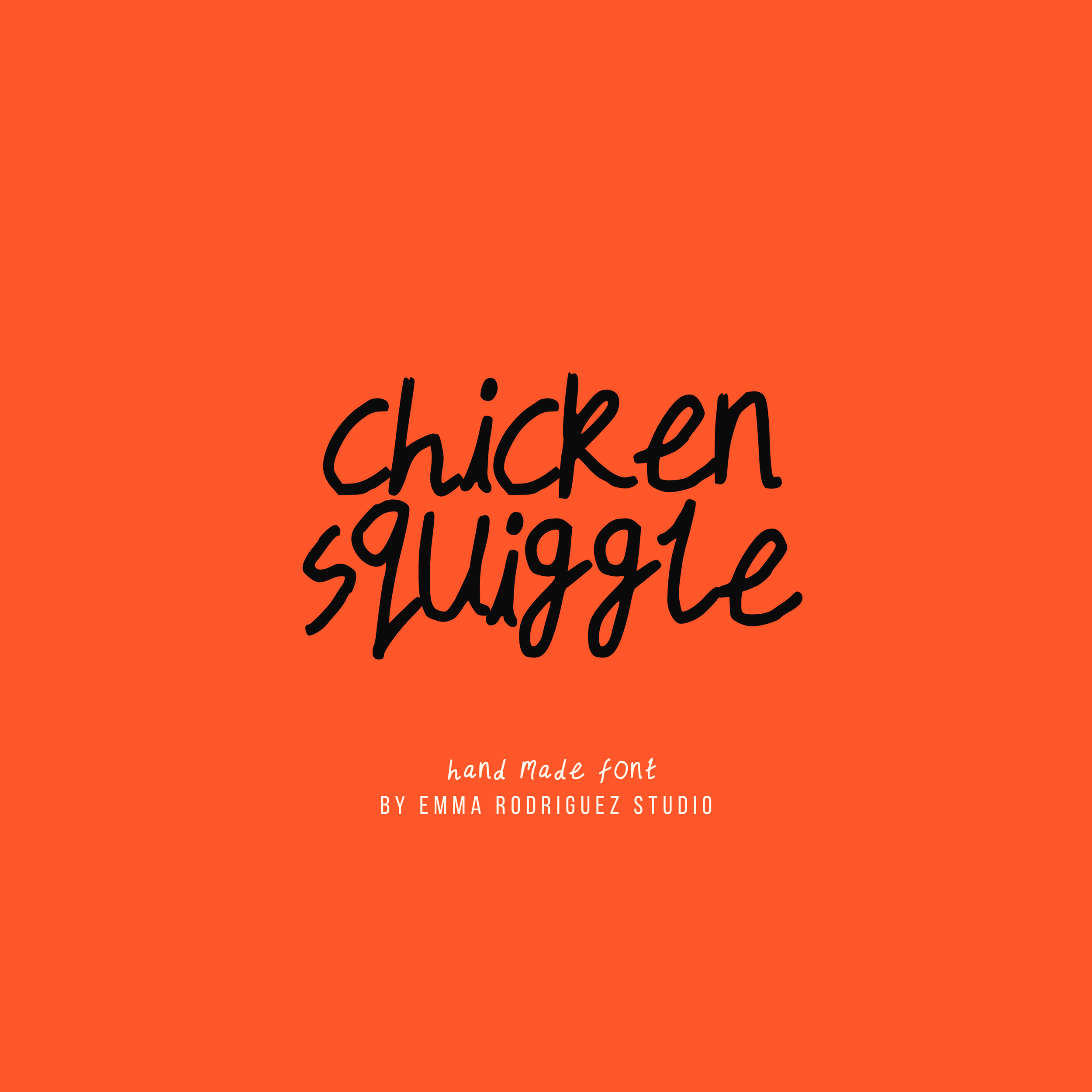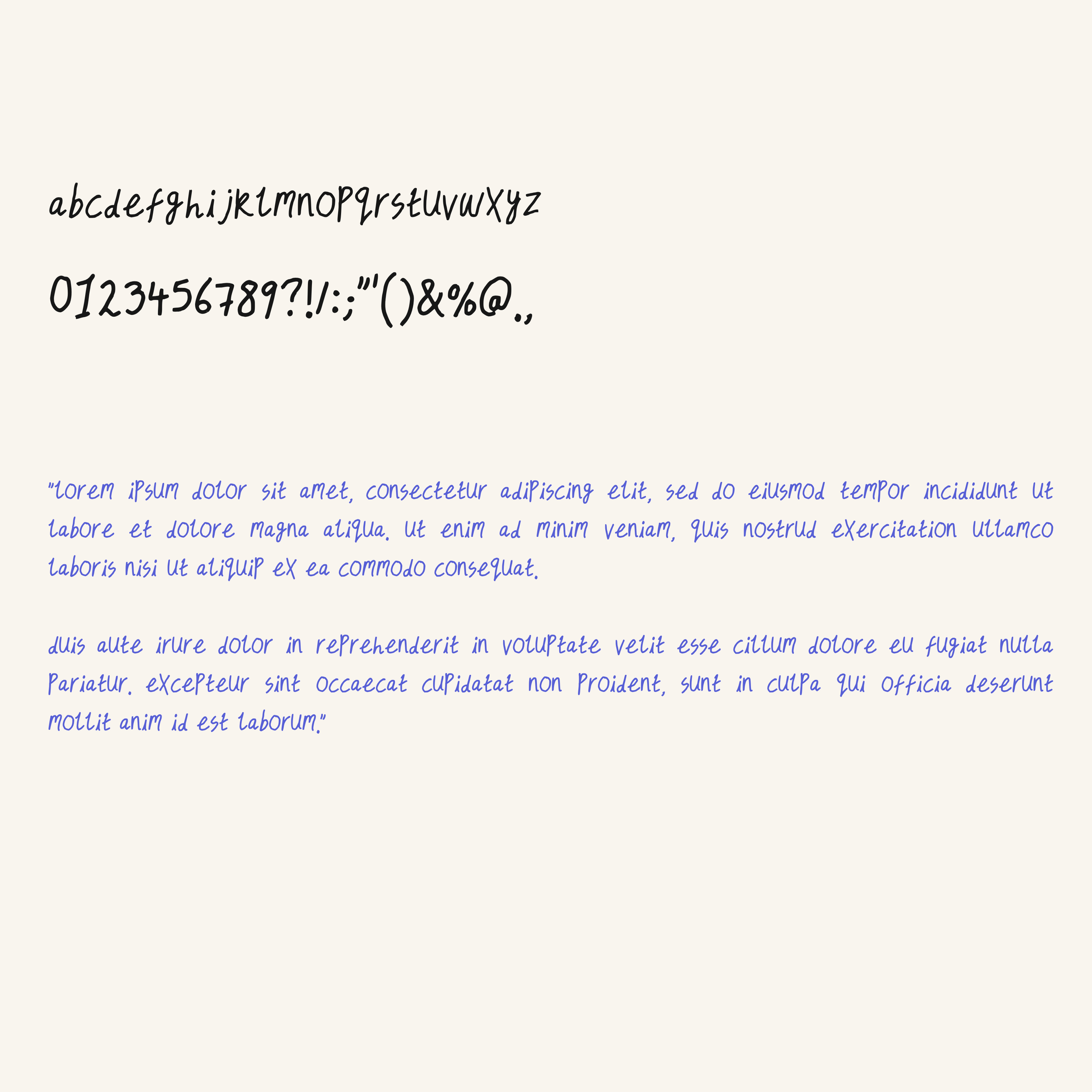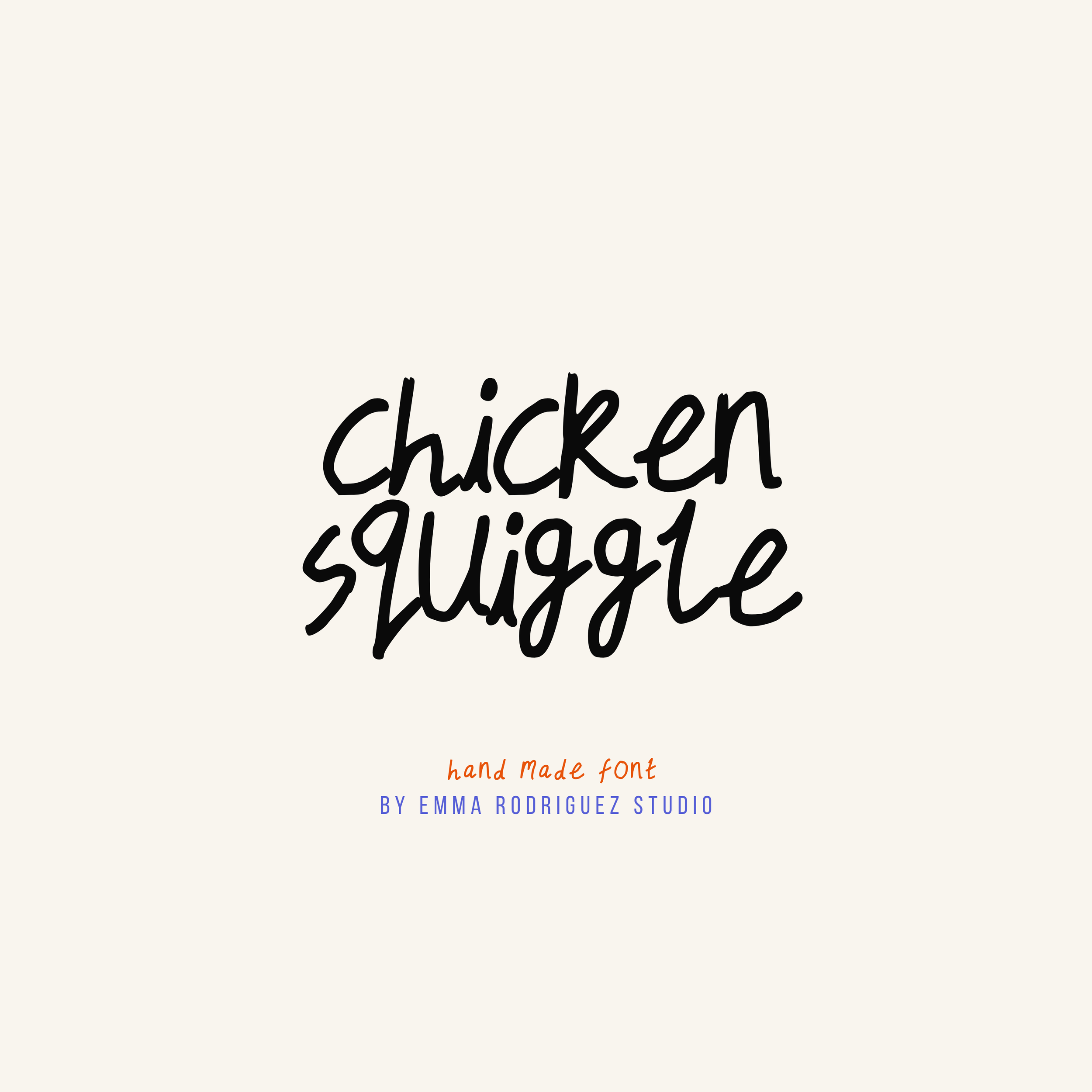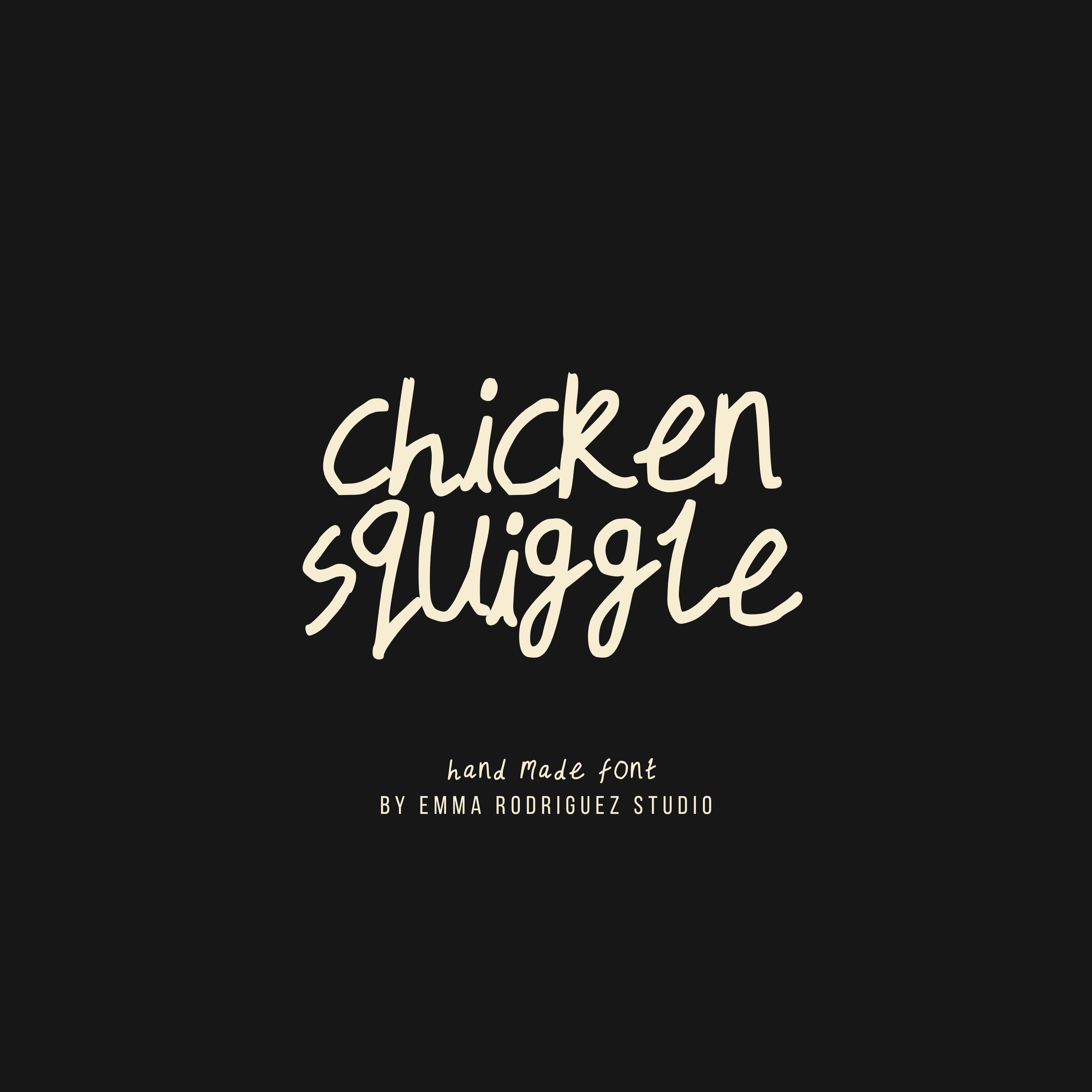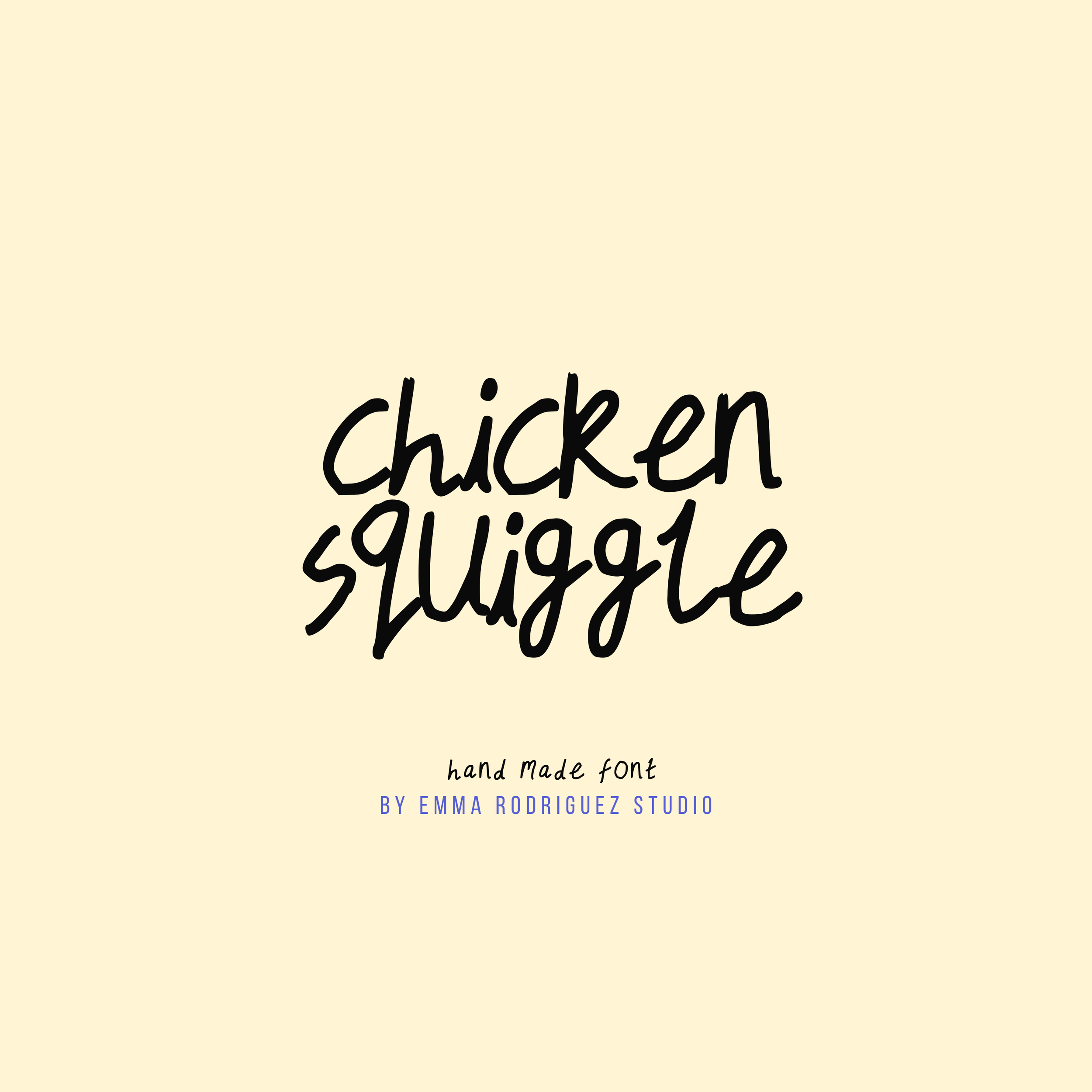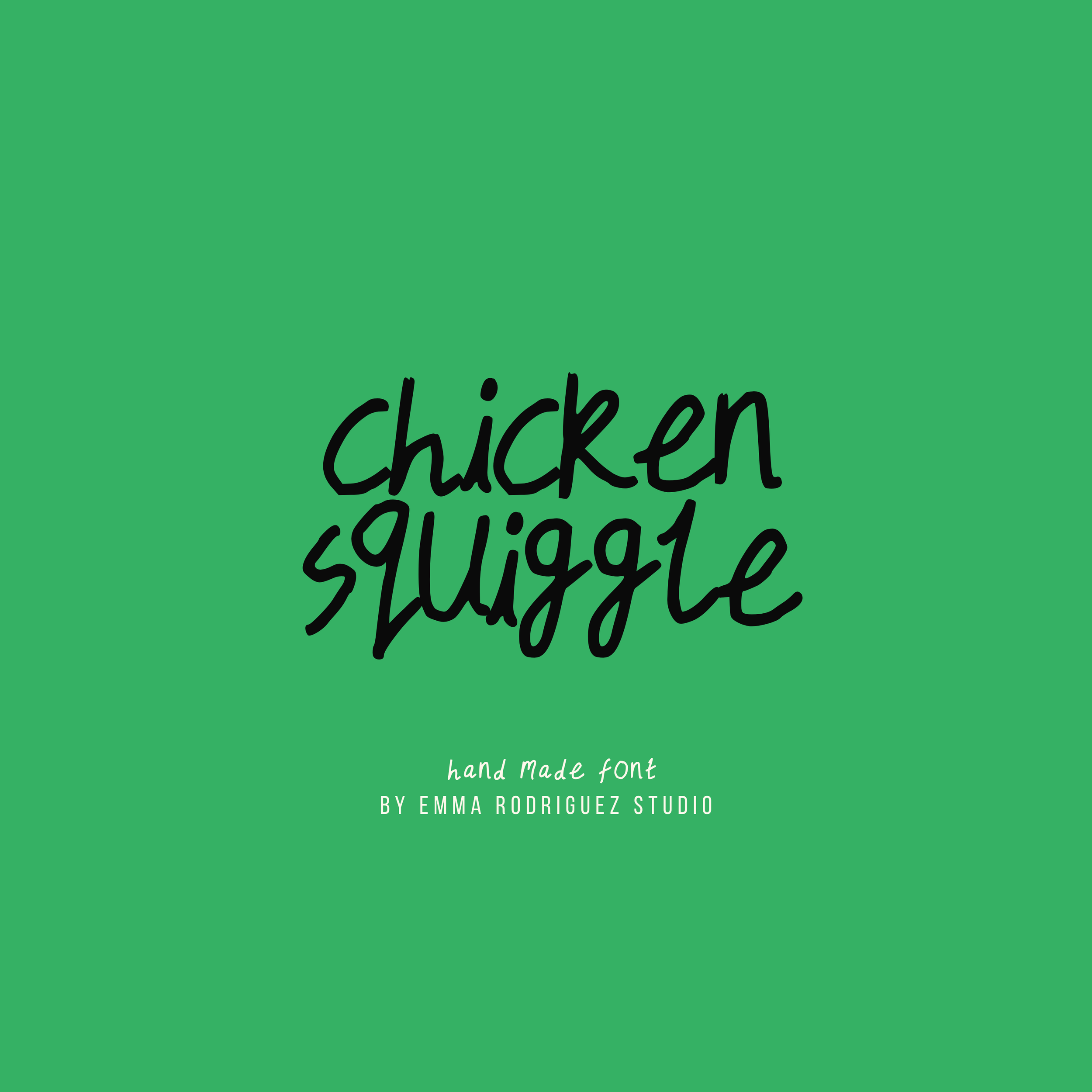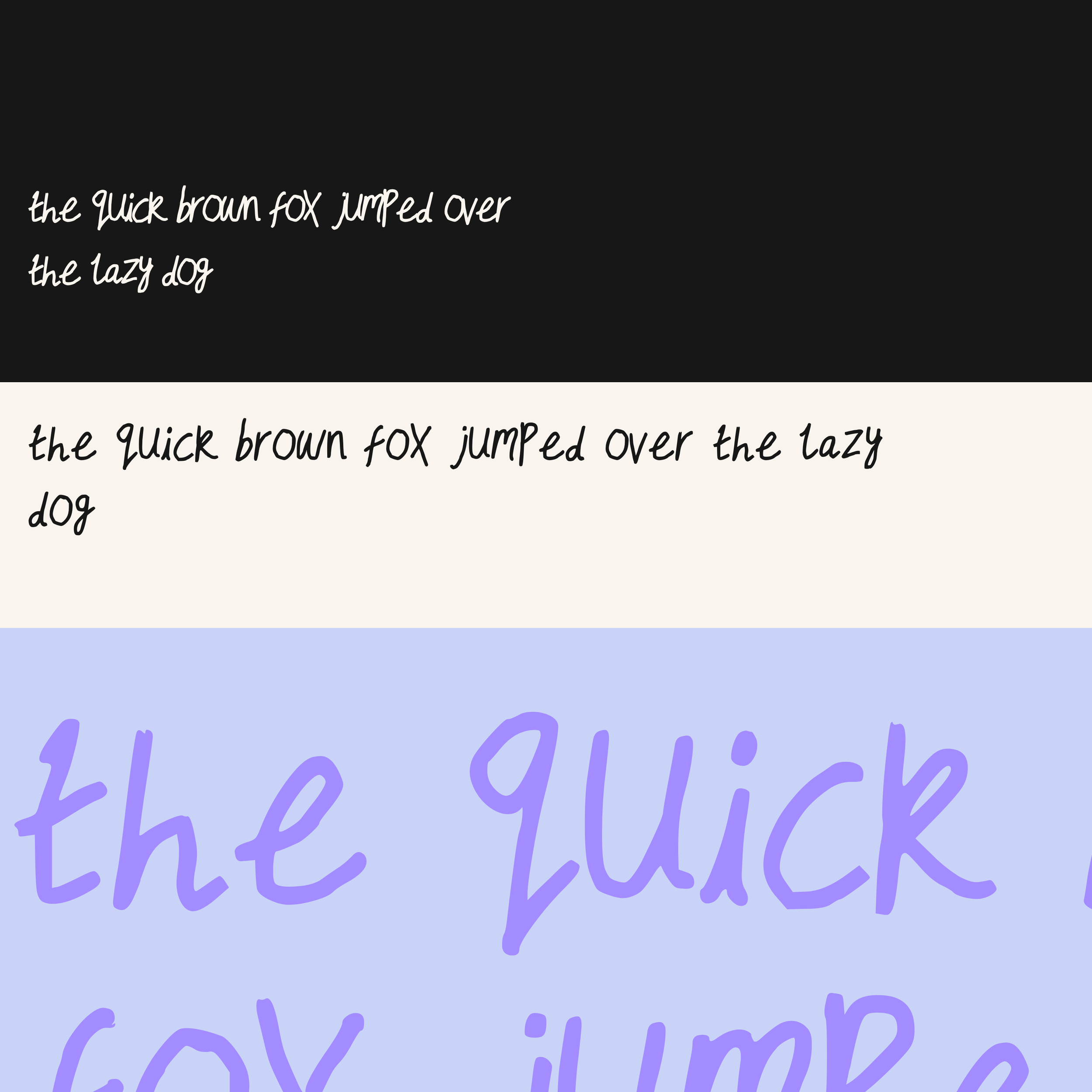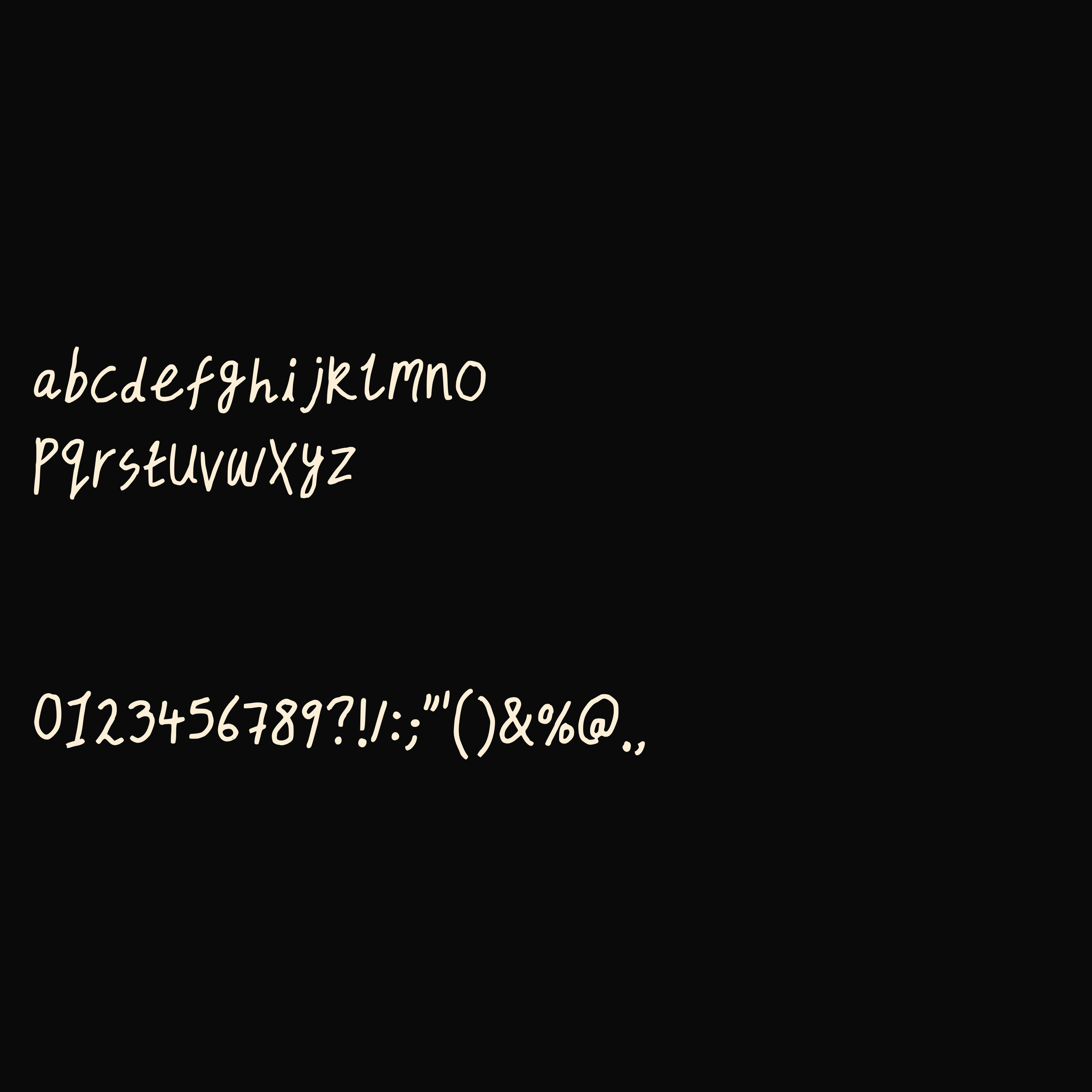
Chicken Squiggle Font - Handwritten Notebook Type
Chicken Squiggle is a scribbled handwriting font with loose, wobbly letterforms inspired by quick notebook doodles and imperfect handwritten notes. It has a casual, slightly chaotic personality that works especially well for playful branding, posters, editorial layouts and creative projects that should feel handmade rather than overly polished.
The irregular shapes and uneven strokes are intentional, giving each word a spontaneous and energetic finish.
• Lowercase letter set
• Numbers and basic punctuation
Please note that Chicken Squiggle contains lowercase letters only. An uppercase version is not included.
Fonts by Emma Rodriguez Studio are made to have personality. Expect naive shapes, wonky details, playful imperfections and type that doesn’t take itself too seriously. They’re not designed for clean, minimal branding. They’re for bold, quirky, maximalist projects that need something a little stranger, sillier and more expressive.